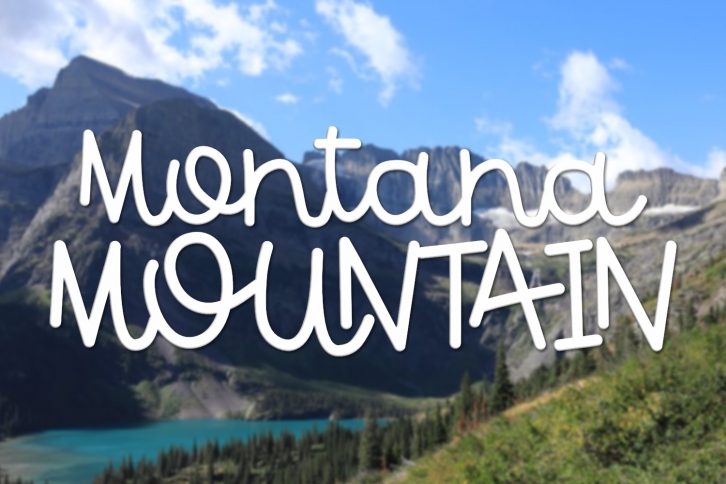
Montana Mountain - A Fun Font With Some Interlocking Letters Download
Montana Mountain is a trendy and unique font with an authentic style. It was designed by Sugar Bear Studio and it's a great choice for creative people who need such a font. It was released on October 27, 2019 and the file size is 20.76 MB. Montana Mountain will add an organic vibe to any design idea!